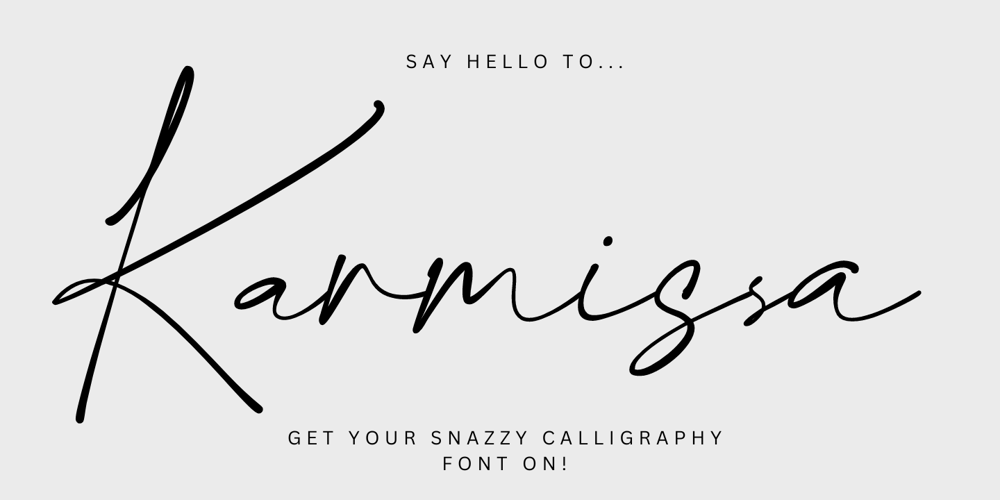
Karmissa Font Family was designed by khaidir and published by Gatype. Karmissa contains 1 styles and family package options. Karmissa is a unique organic handwritten font perfect for elevating branding, adding personal touches to invitations, and enhancing product packaging. This font strikes a balance between modern simplicity and authentic charm. It features a full set of uppercase and lowercase letters, numbers, punctuation, and multilingual symbols. Karmissa also offers lowercase beginning and ending swashes, ligatures, and bonus swashes to give your designs a touch of elegance and flair.